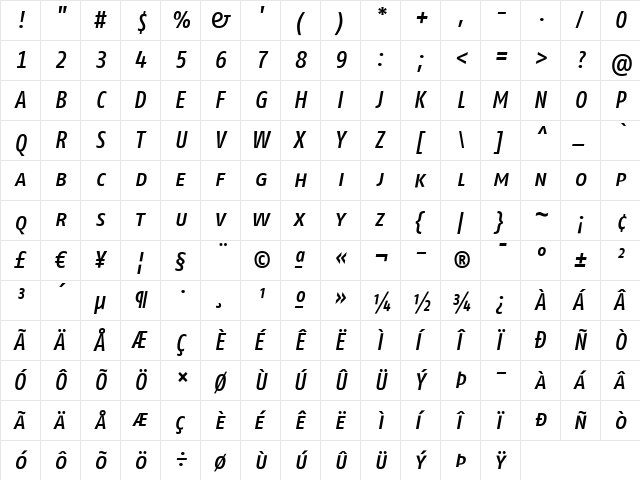
FagoCoTf ItalicMedium
FagoCoTf takes a measured approach to typography — its balanced proportions and neutral character make it a reliable workhorse for both digital and print work. The dynamic lean of this cut emphasises speed and emphasis in any layout.
Pro Tip: Try FagoCoTf for annotation and caption copy alongside an upright companion — the contrast in angle creates a dynamic but ordered typographic system.